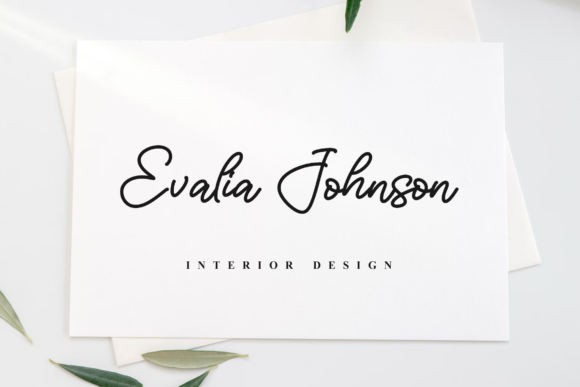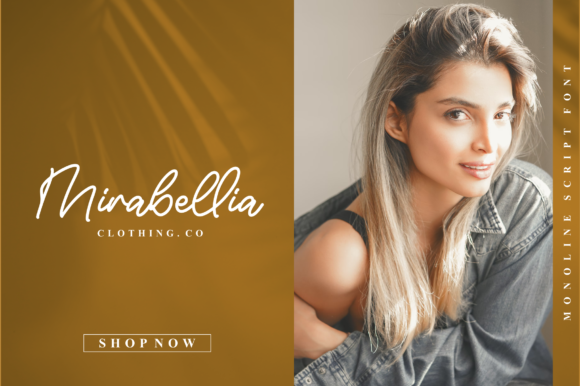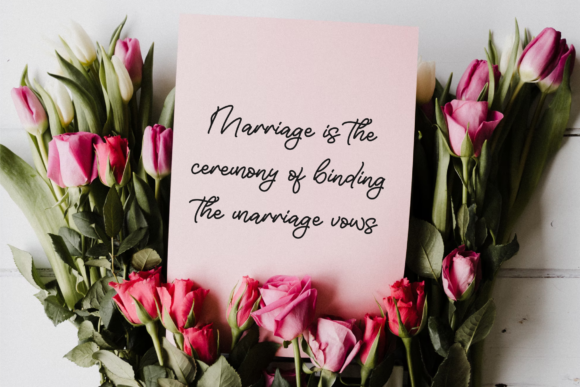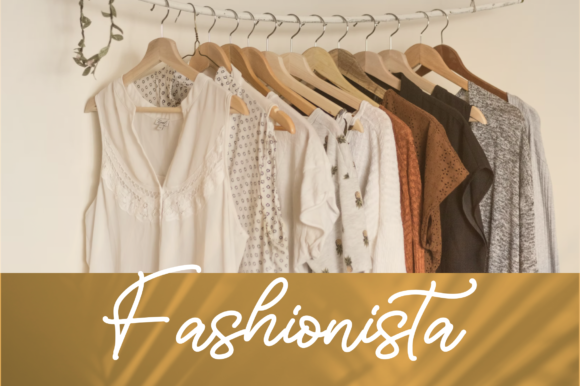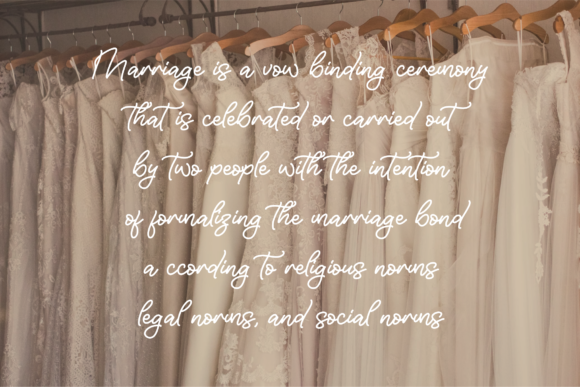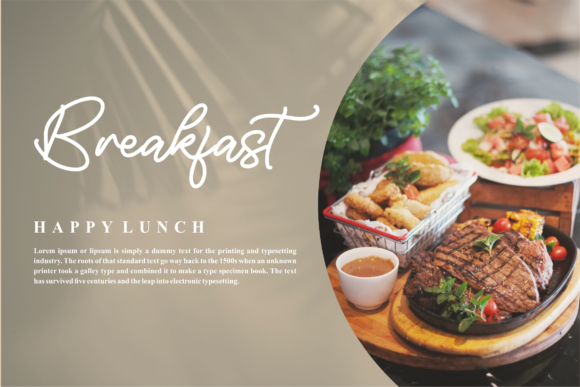
Introduction to Hamster Cutties Font
Have you ever been in the middle of a creative project, and you just can’t seem to find the right font to bring it all together? The perfect combination of style and personality can make all the difference between a good design and a great one. For many designers, this is where the Hamster Cutties Font comes in – a high-quality script font that’s sure to elevate any creative endeavor.
What sets the Hamster Cutties Font apart is its meticulous attention to detail and elegant design. Whether you’re working on a personal project or a commercial design, this font has the potential to add a touch of sophistication and whimsy to your work. With its free download option and transparent background, it’s the perfect design resource for any creative project.
Key Features of Hamster Cutties Font
- High-quality vector graphics, suitable for creative projects and designs
- Unique, hand-drawn style that adds a touch of whimsy and personality to any creative project
- Comes in a range of sizes, from small to large, making it versatile for various design needs and applications
Honest Review: Hamster Cutties Font
As a designer, I’m always on the lookout for unique and high-quality design resources to elevate my creative projects. The Hamster Cutties Font caught my eye with its adorable and playful aesthetic. I decided to give it a try and see how it performs in real-world applications.
- ✨ High-quality design that’s perfect for children’s books, educational materials, or any project that needs a cute touch.
- ✨ The transparent background makes it easy to use in various design scenarios.
- ⚠️ The font is limited in terms of character set and doesn’t support all languages.
- ⚠️ The design, while cute, might not be suitable for all audiences, especially those who prefer a more serious tone.
Overall, I’m impressed with the Hamster Cutties Font’s potential. While it may have its limitations, it’s a great resource for designers who want to add a playful touch to their projects. With a bit of creativity, this font can be used in a variety of applications, from branding to editorial design.
Tips for Getting the Most Out of Hamster Cutties Font
To get the most out of the Hamster Cutties Font, try combining it with other playful graphics and elements. This font is perfect for designers who want to add a touch of whimsy and fun to their designs.
The Hamster Cutties Font is perfect for a variety of use cases, including social media graphics, posters, and invitations. Its high quality and creative design make it a great resource for designers who want to stand out from the crowd.